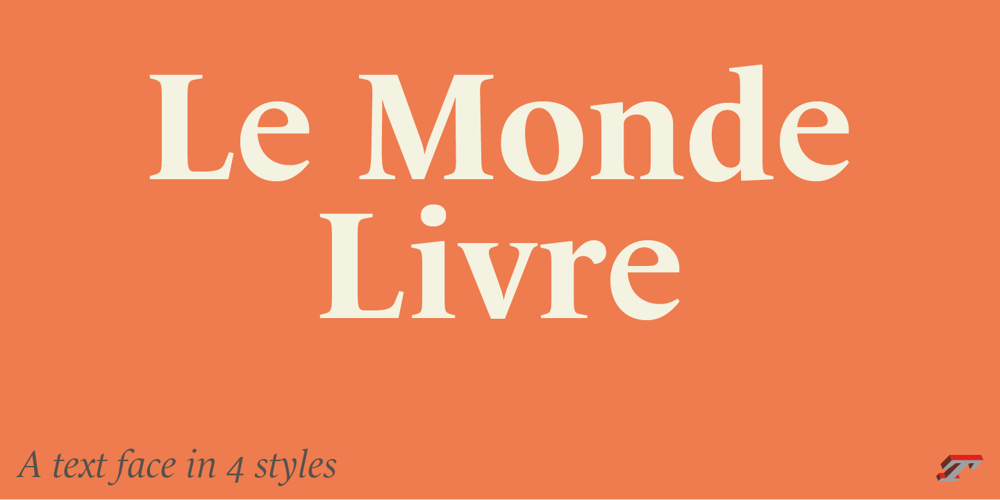
Le Monde Livre Std
Le Monde Livre Std Font Family was designed by Jean François Porchez and published by Typofonderie. Le Monde Livre Std contains 4 styles and family package options. A text face in 4 stylesBefore the arrival of Phototypesetting, each font size had a specific design. Le Monde Livre, designed by Jean François Porchez, along with Le Monde Journal re-establishes this practice. When Le Monde Journal was developed specifically for use at small point sizes (below 10 points.) Le Monde Livre works beautifully for book typography, magazine settings. In comparison to the italics in Le Monde Journal, Le Monde Livre’s italics are of a totally different design, closer to the models of the Renaissance. The families match well together on the same page, Le Monde Journal for small sizes settings, Le Monde Livre for large settings. The verticals metrics and proportions of Le Monde Livre are calibrated to match perfectly others Typofonderie families.